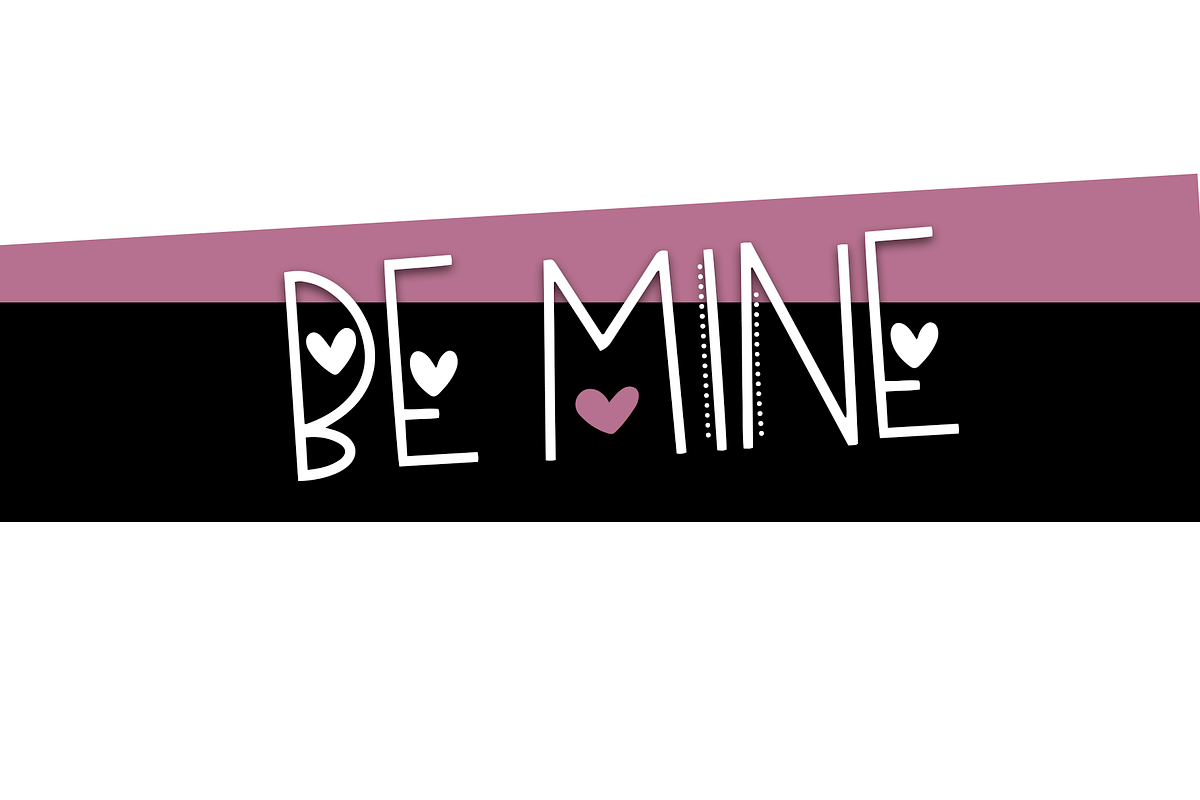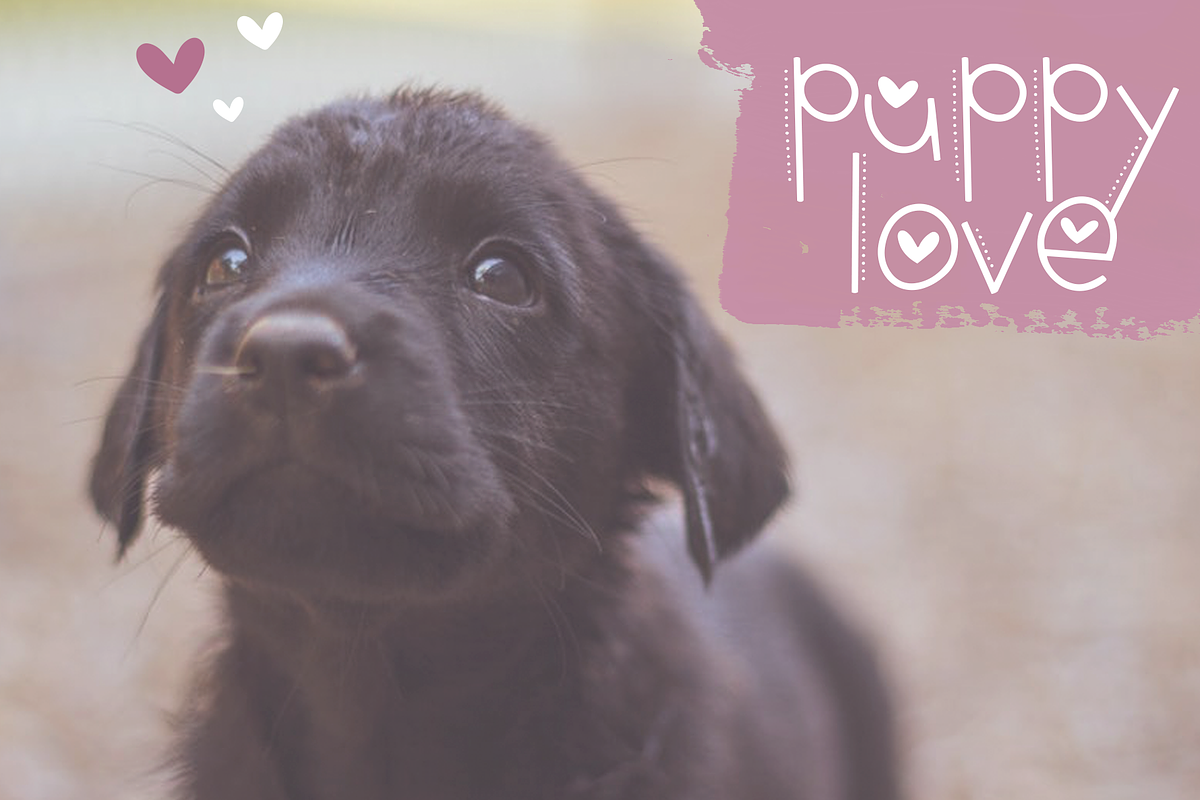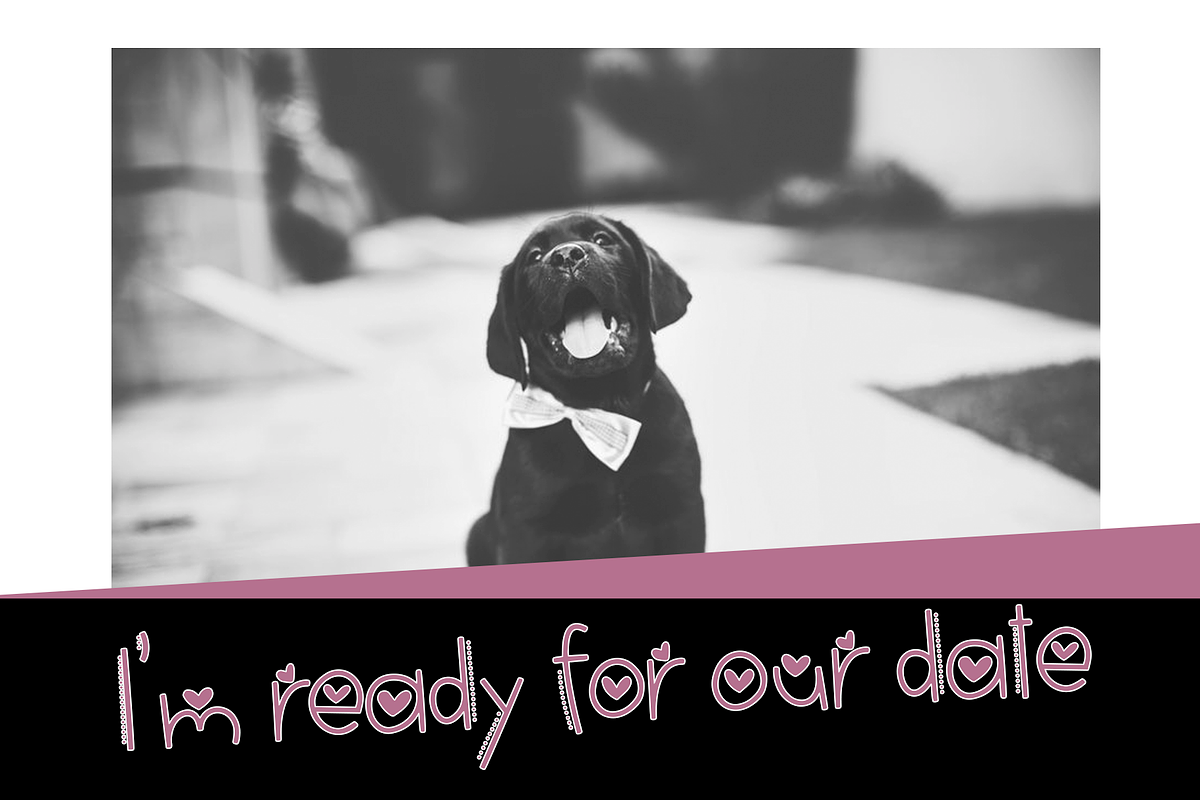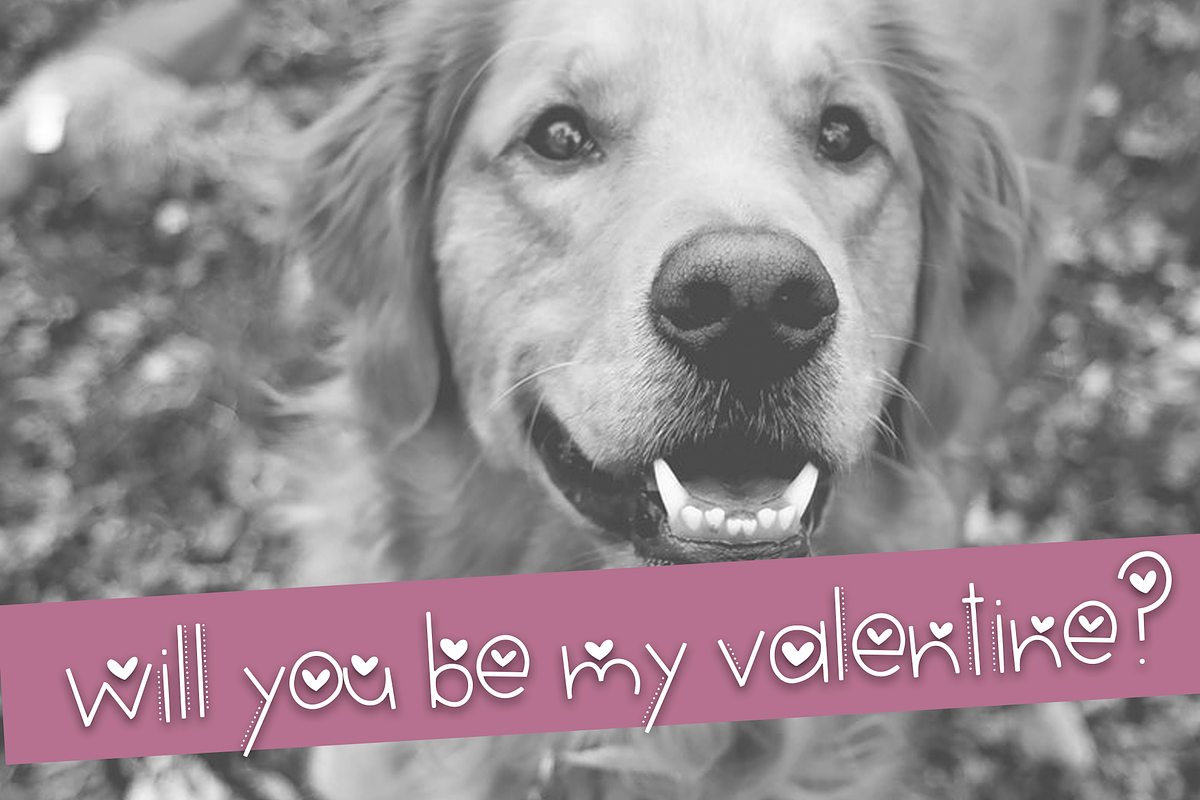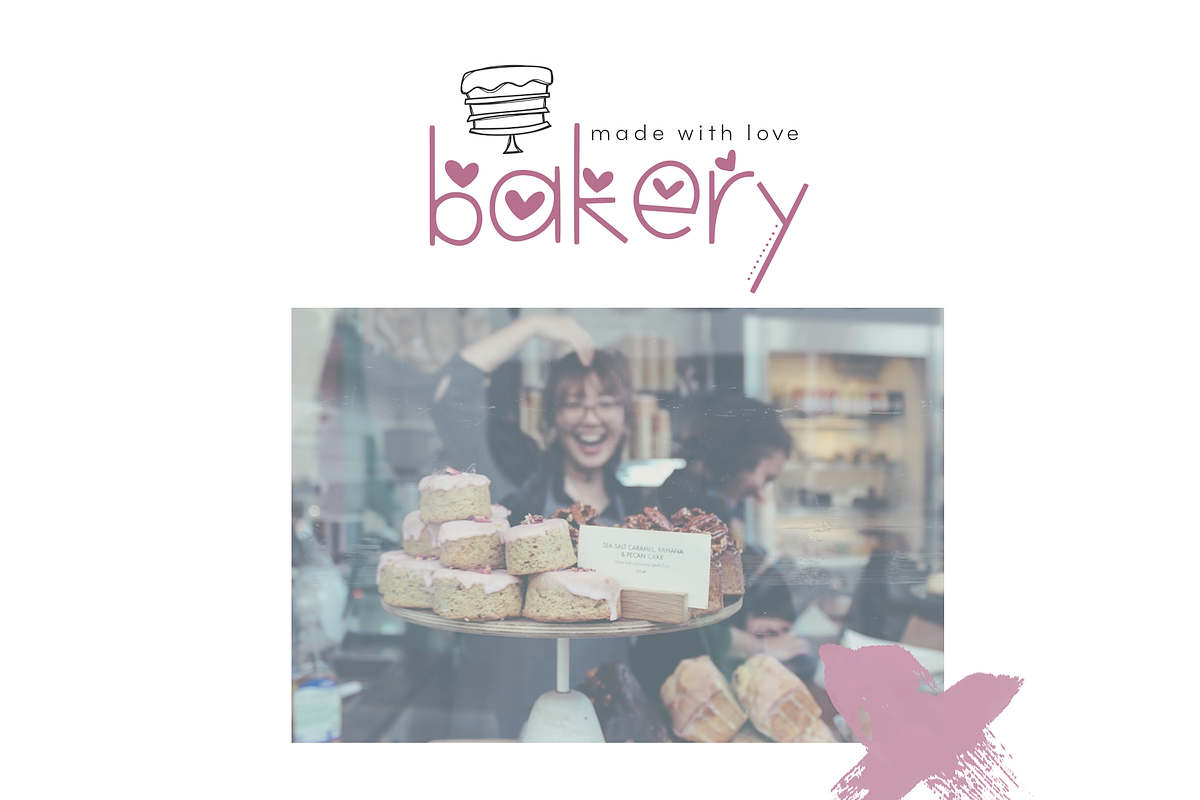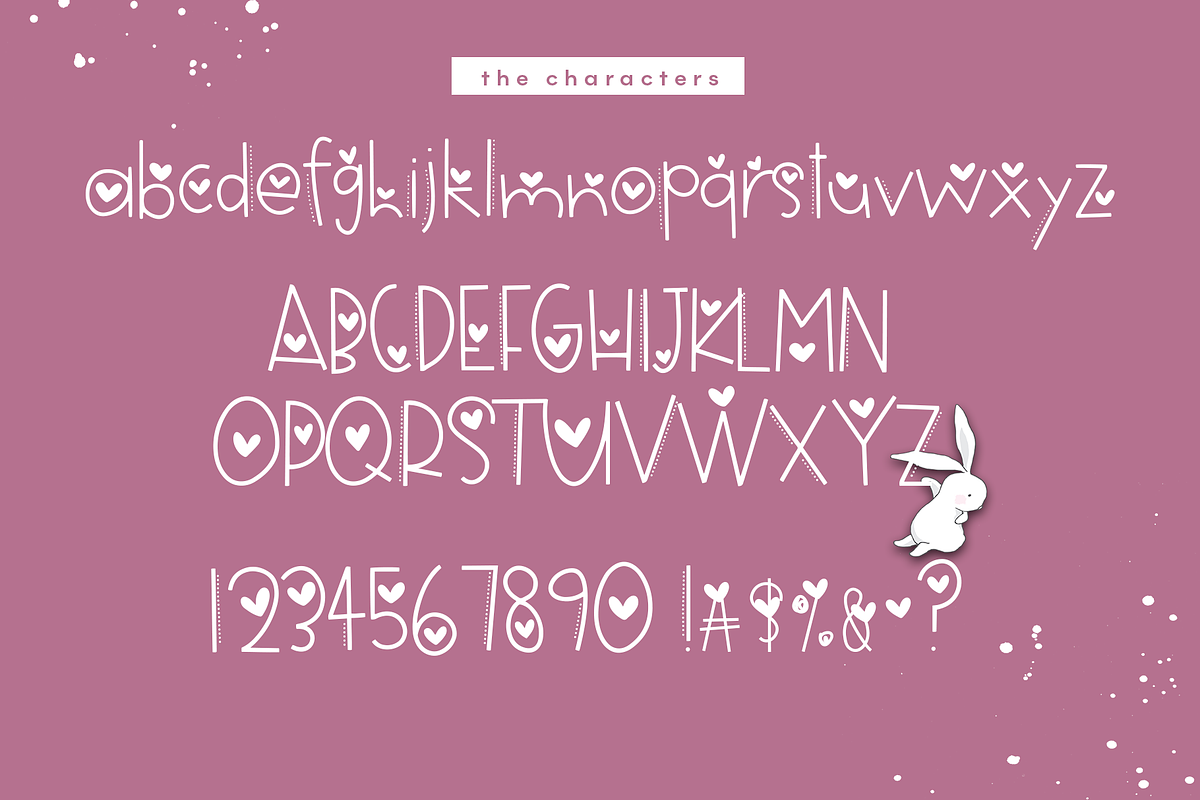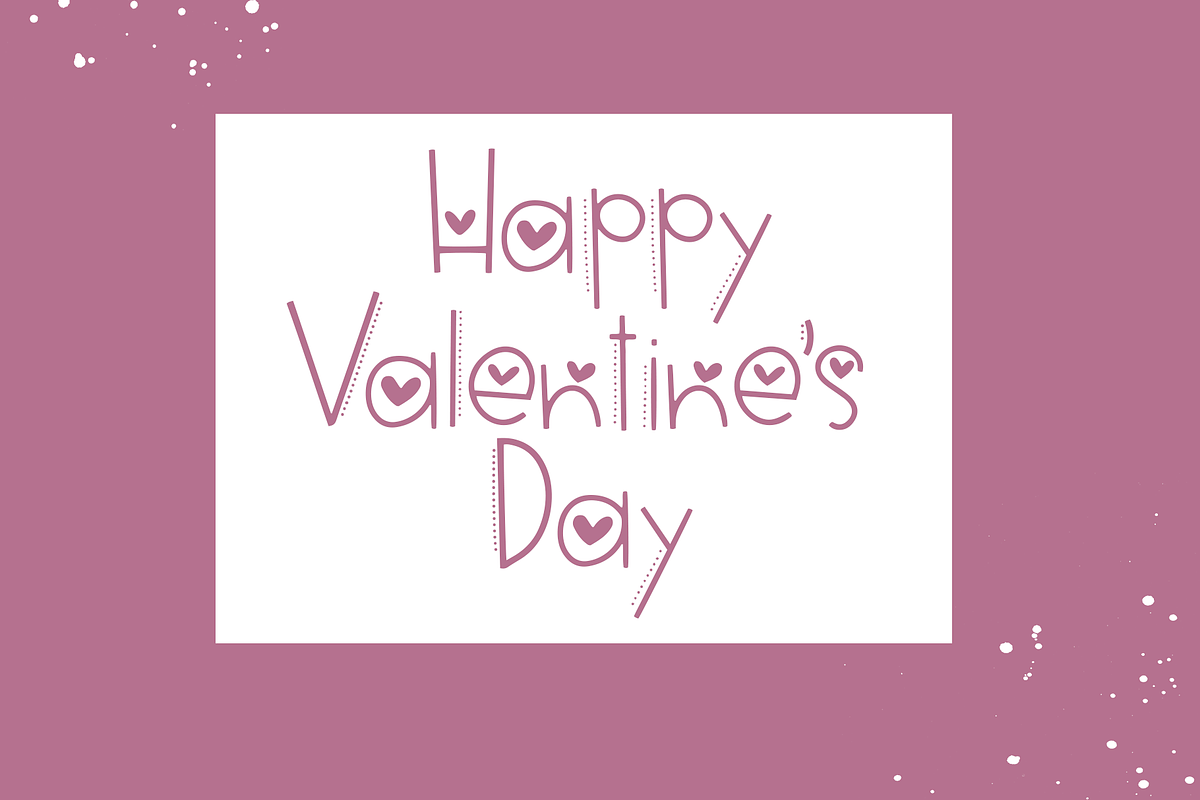
Hi Valentine - Valentine's Day Font
Valentine is a cute and quirky handwritten font. All letters include either a heart or dotted lines.
This font is perfect for Valentine's Day designs! It is also great for quotes, headings, t-shirts, logos, invitations and more!